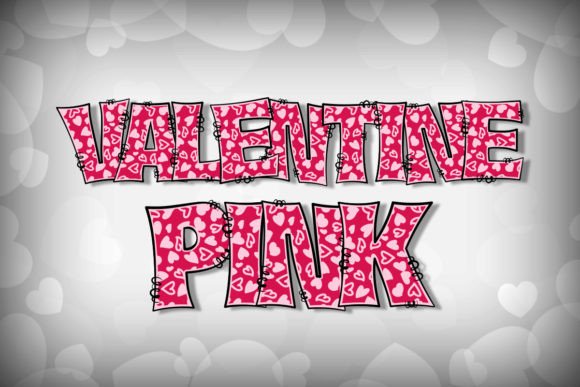
Unleash the Enchantment of Valentine Pink Font: A Rhapsody of Colors for Every Design Tale
Journey into a world of chromatic wonders with Valentine Pink Font, a font family that dances with a myriad of colors, beckoning you to weave narratives that ignite imaginations. Adorned with intricate details, each letter, each glyph, is a testament to the artistry of Little Lady Design, a name synonymous with typographic excellence.
This font is more than just a collection of characters; it's a treasure chest of visual delights, a symphony of hues that harmoniously blend to create a captivating spectacle. Whether you're crafting heartwarming Christmas cards, designing elegant wedding invitations, or adding a touch of vibrancy to your social media posts, Valentine Pink Font is your muse, your gateway to a world of endless creative possibilities.
With its versatility, this font transcends the boundaries of theme and style, effortlessly adapting to your design vision. Whether you're envisioning whimsical wall displays, eye-catching logos, or sleek product packaging, Valentine Pink Font seamlessly integrates, elevating your designs to new heights of aesthetic appeal.
Imagine your designs adorned with Valentine Pink's radiant hues, inviting gazes to linger, hearts to flutter, and imaginations to soar. Its bold strokes and vibrant colors command attention, drawing viewers into the tapestry of your creativity.
This font is a kaleidoscope of colors, a visual symphony that adds a touch of magic to every project. It's the perfect choice for conjuring up enchanting invitations, stationery that whispers elegance, and photography that captures the essence of life's most cherished moments.
So, dear seekers of aesthetic excellence, embrace the allure of Valentine Pink Font. Let its vibrant colors ignite your creativity, let its intricate details enchant your audience, and let your designs blossom into masterpieces that leave an indelible mark on the world.